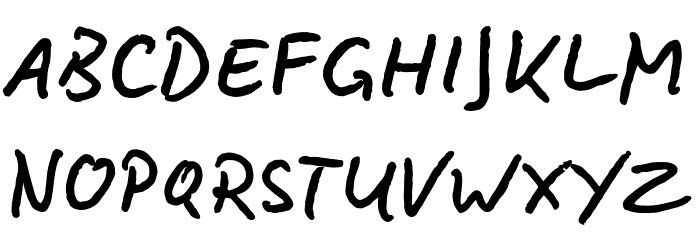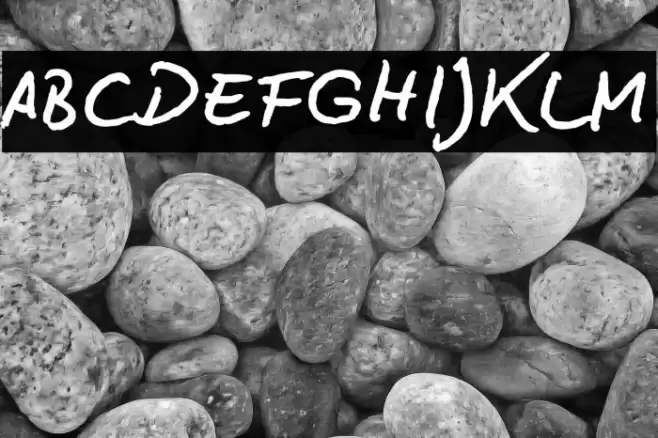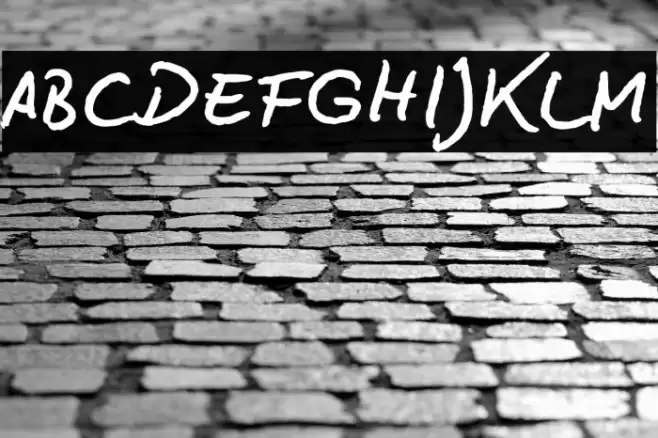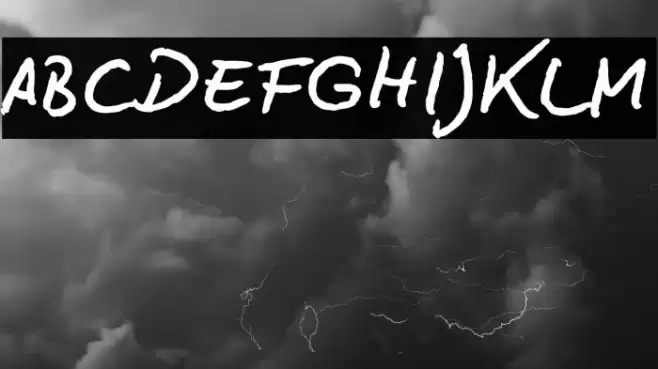
BD Lettering Reduced Font
This font features a dynamic and expressive handwritten style, characterized by its fluid and slightly irregular strokes. The letters have a casual, personal touch, reminiscent of quick, confident handwriting. The uppercase and lowercase letters maintain a consistent flow, with slight variations that add to the font's charm. The strokes are moderately thick, providing a bold presence without overwhelming the design. This font is versatile, suitable for projects that require a personal or informal touch, such as invitations, greeting cards, or creative branding. Its unique style makes it stand out, offering a blend of readability and artistic flair.
A dynamic, handwritten font with fluid, expressive strokes.
- Font: BD Lettering Reduced
- Proposed Projects: Ideal for invitations, greeting cards, creative branding, and personal projects.
- Category: Handwritten
- Overall Style: Casual, Artistic
- Use Case: Headlines, Logos, Invitations